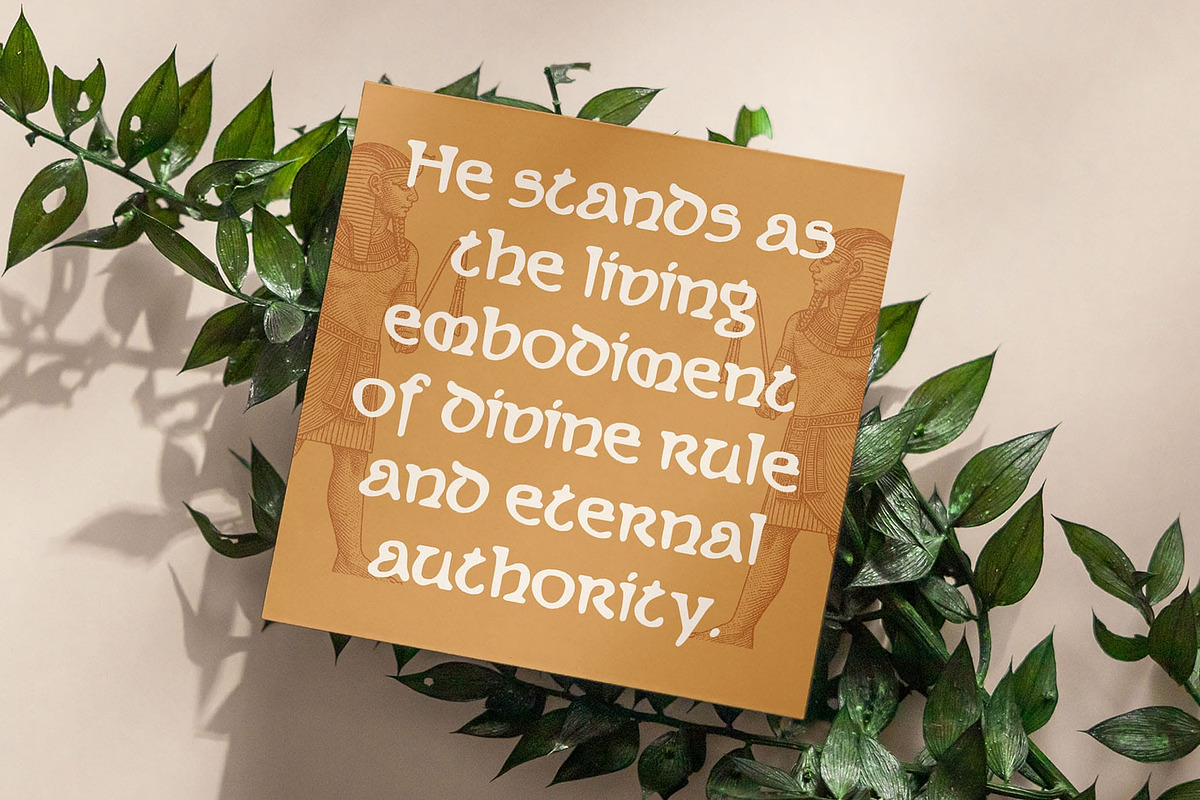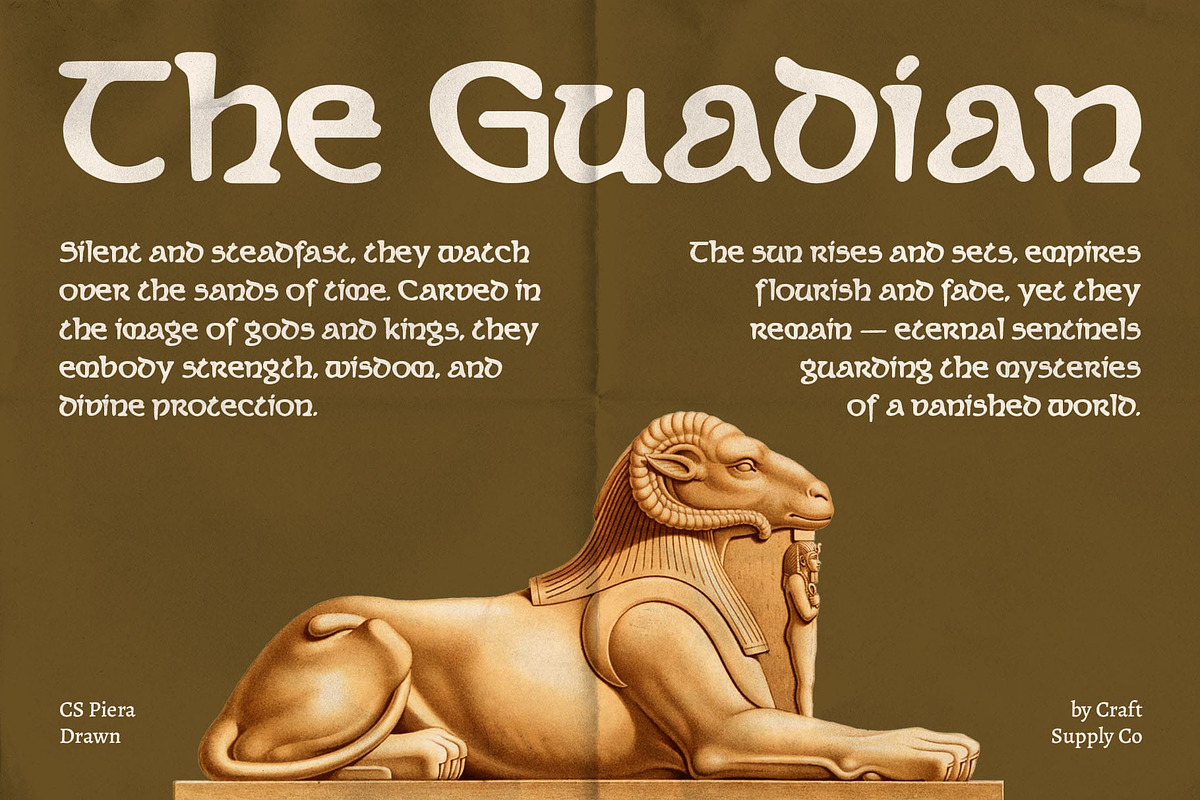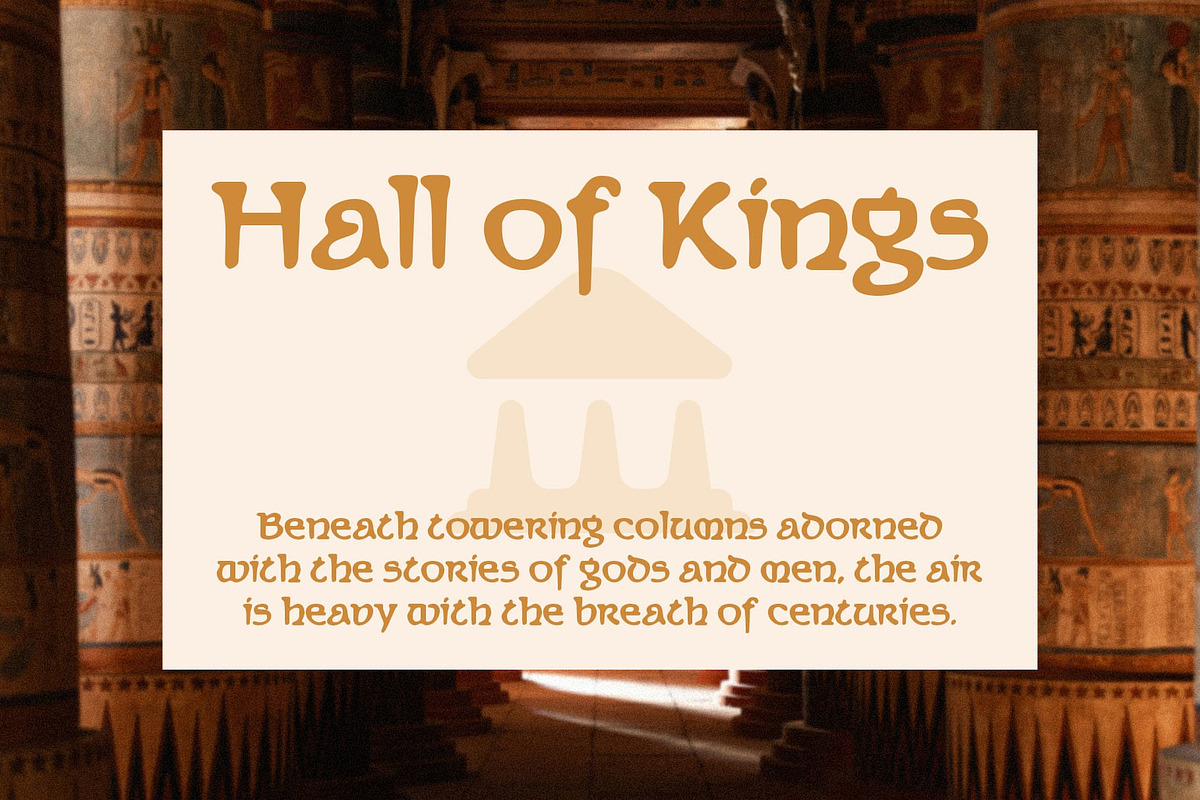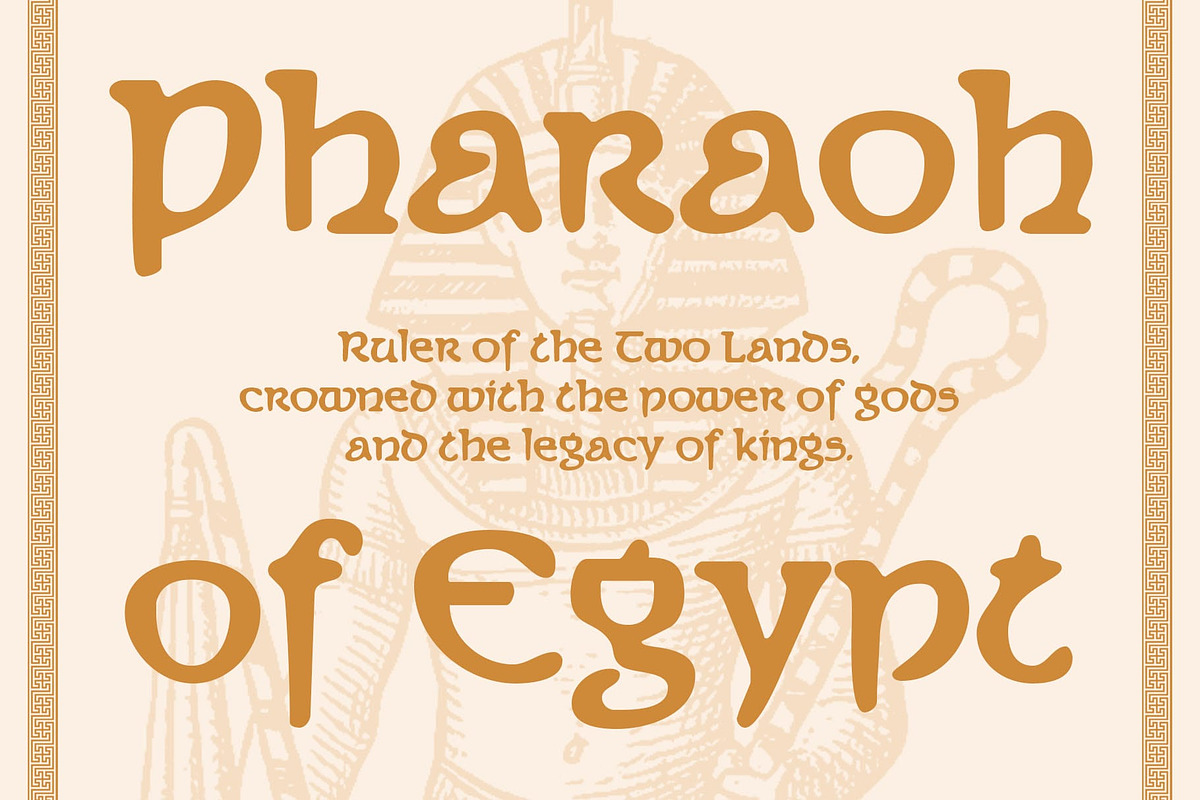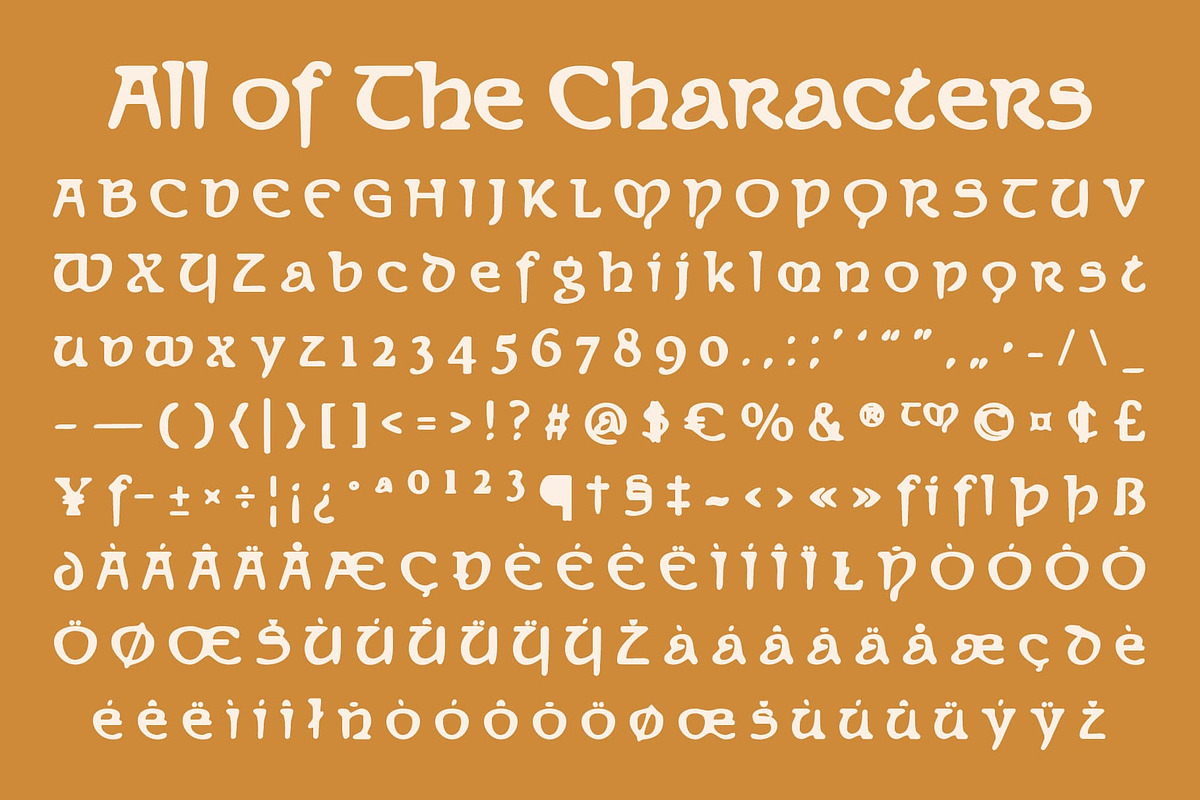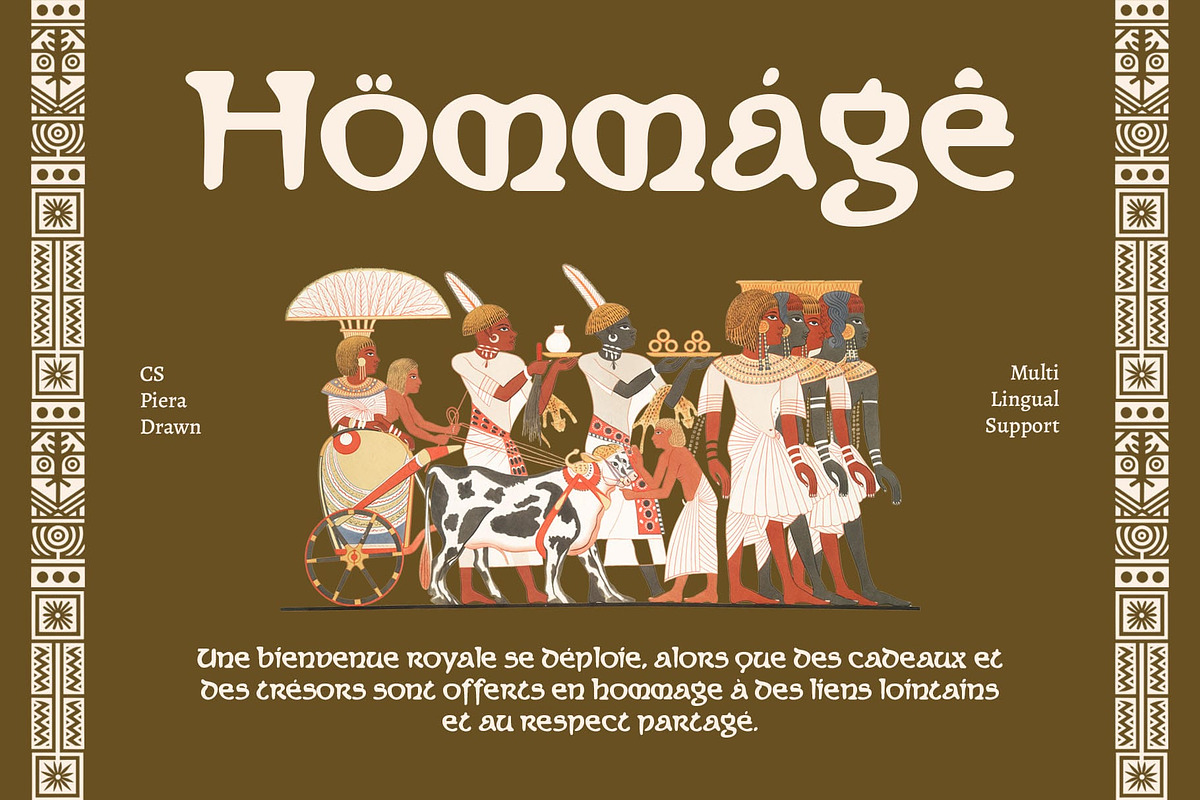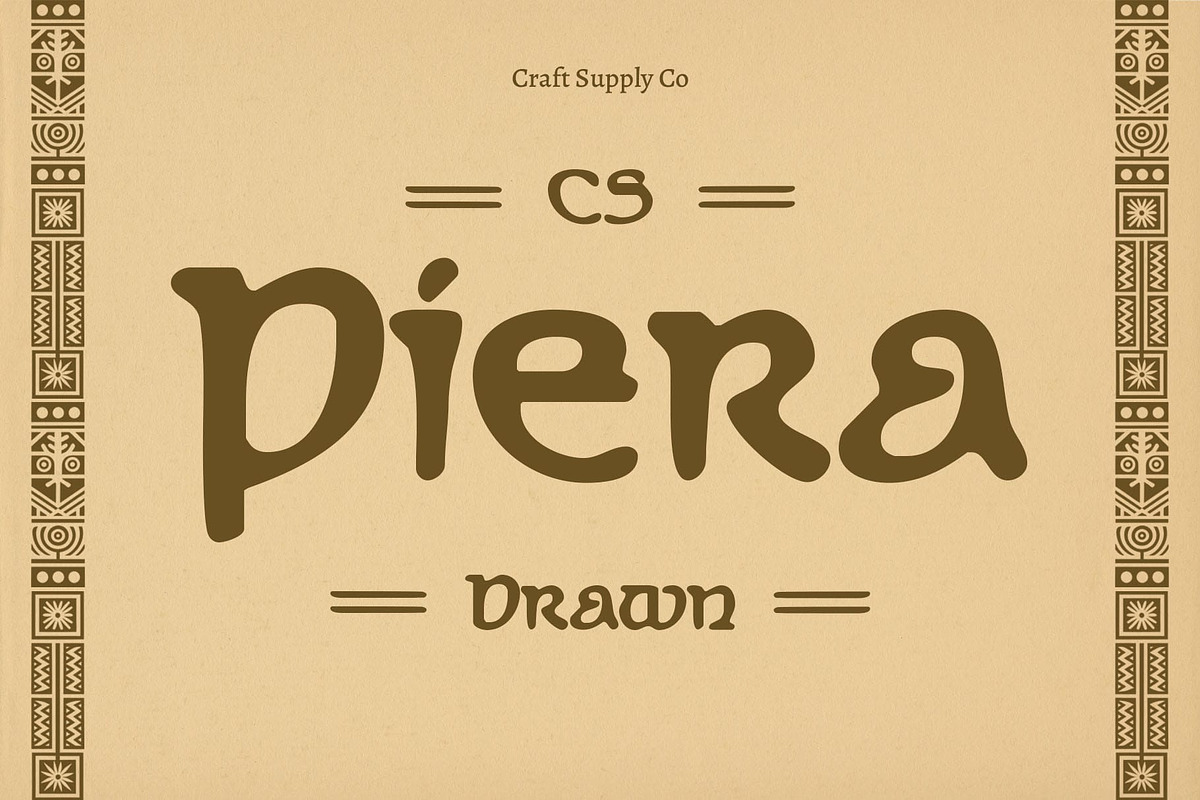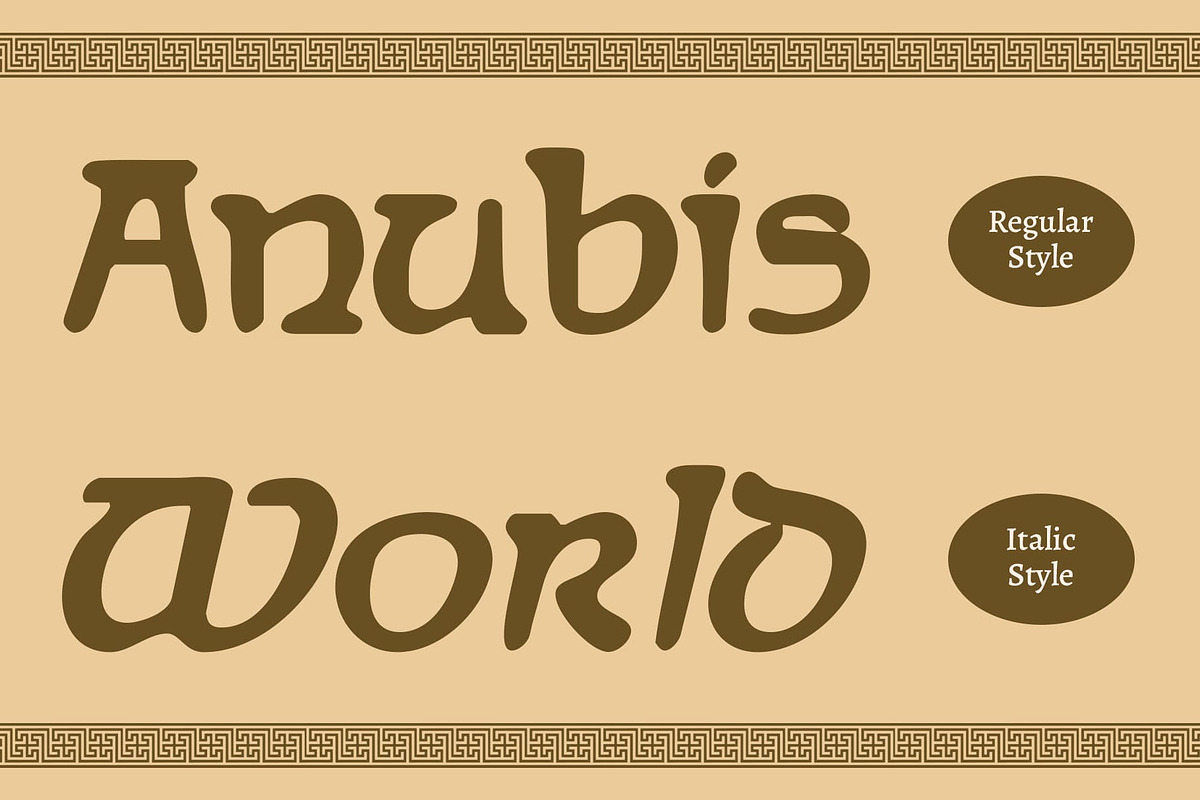
CS Piera Drawn
CS Piera Drawn: Classic Uncial with Handmade Character
Display Font with Uncial Inspiration CS Piera Drawn is a display font featuring classic uncial forms, inspired by ancient manuscripts. Its curved, historical letterforms evoke authority, tradition, and timeless elegance, making it ideal for designs that honor classical aesthetics.
Handmade Drawn Texture Enhanced with a subtle drawn effect, each character carries a handcrafted texture. This adds depth, personality, and artistic nuance, transforming standard uncial shapes into expressive and lively typography.
Blend of Tradition and Artistry The combination of classical uncial forms with handcrafted touches gives this cultural and heritage-inspired font a unique character. It balances historical authenticity with creative expression, making it suitable for projects that seek both tradition and artistry. It bridges historical elegance with creative modern flair.
Versatile for Creative Projects Perfect for posters, branding, editorial layouts, or traditional-themed designs, this sophisticated and refined font adapts seamlessly to a variety of contexts. Its antique-inspired forms combined with a handmade finish make every project feel elegant, distinctive, and visually compelling.
Elevated Presence in Every Design Whether used for historical-inspired branding, high-end editorial work, or decorative posters, this classic and historical font brings a sense of authenticity, elegance, and visual intrigue. Its unique blend of classical inspiration and handmade artistry ensures that every design feels refined, expressive, and memorable.